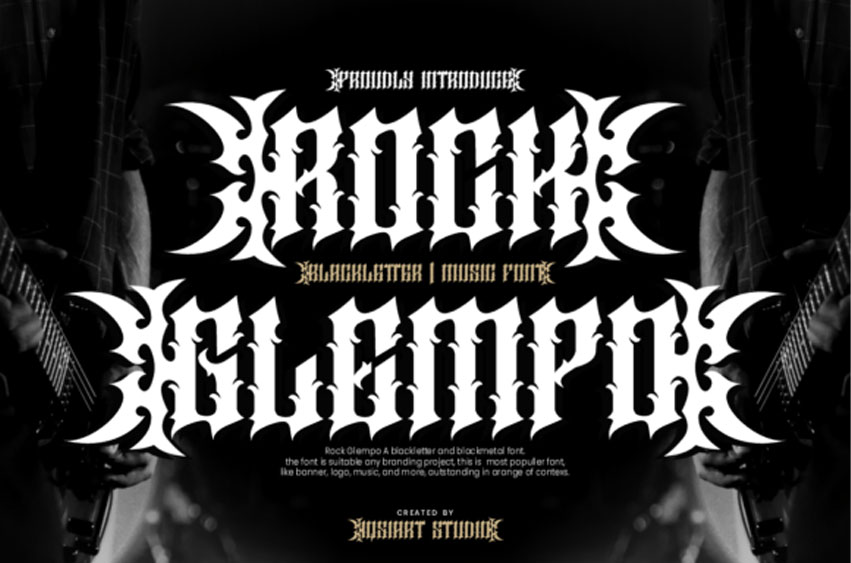
Rock Glempo Font
Rock Glempo Font is a fierce and electrifying blackletter font infused with heavy metal energy and gothic edge. With razor-sharp strokes, tribal-like extensions, and bold symmetry, this font is made to dominate music branding, rock band logos, concert posters, and dark-themed merchandise.
It’s unapologetically loud, making it the perfect voice for extreme genres and bold visual statements.